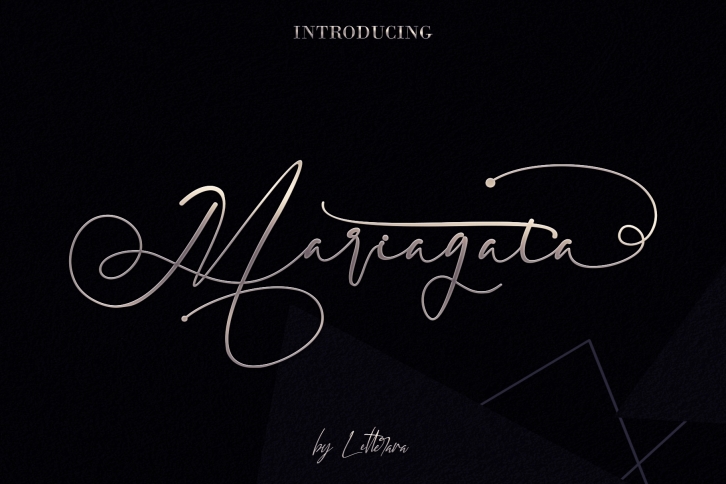
Mariagata is a beautiful font that was designed by letterara. It's a great choice for designers and creatives who need such a font. It was released on October 2, 2019 and the file size is 11.35 MB. Mariagata may give a more youthful, expressive and casual look to your project. It is a very beautiful, refined, elegant, and high-quality font.